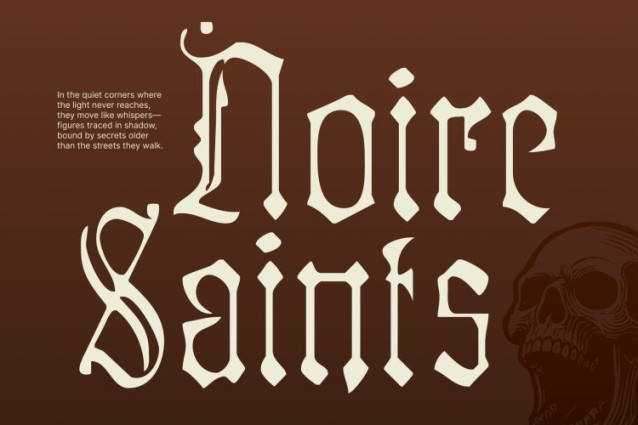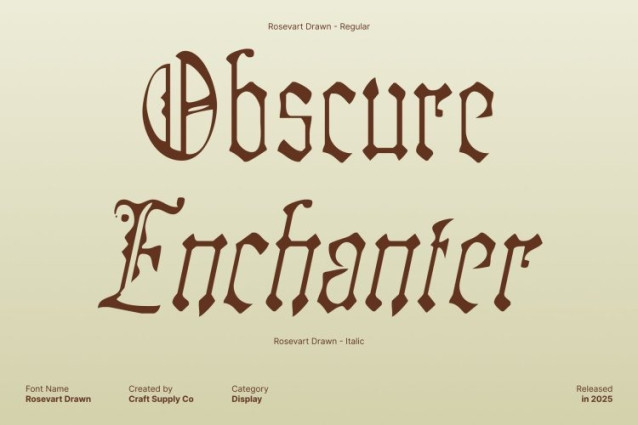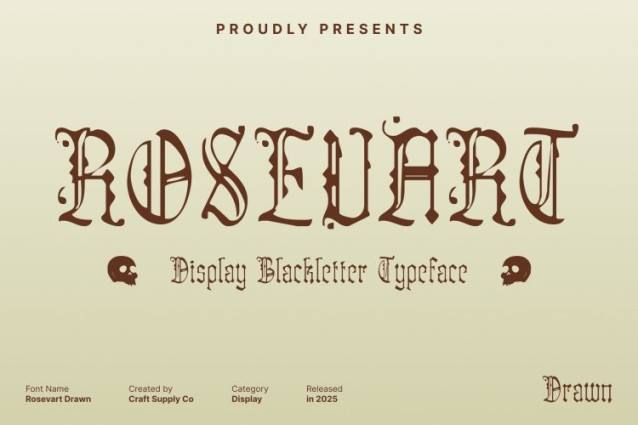
Rosevart Drawn Font
Rosevart Drawn Font This font is a decorative blackletter display that embraces the dramatic elegance of traditional gothic typography. Its sharp angular strokes, pointed curves, and ornamental detailing create a striking visual presence that instantly commands attention.
Hand-Drawn Texture for Authentic Artistic Character
What sets this font apart is its expressive drawn texture, adding a handcrafted touch that enriches every letter with depth and personality. The imperfect, artistic texture brings warmth to the bold blackletter form, making the typeface feel more human and visually engaging. This handmade quality enhances its dramatic nature, giving designs a unique blend of heritage charm and creative flair.
Ideal for Book Covers and Heritage-Themed Branding
This font thrives in projects that require strength, tradition, and visual storytelling. Its bold blackletter style makes it perfect for book covers especially fantasy, historical, or dark-themed genres where dramatic typography plays a major role in setting the tone.
Perfect for Posters, Logos, and Distinctive Display Use
Whether you’re crafting expressive posters, standout logos, or creative visual campaigns, this font delivers a classic yet distinctive aesthetic. Its ornamental form captures attention from afar, while its drawn texture invites closer appreciation of detail.